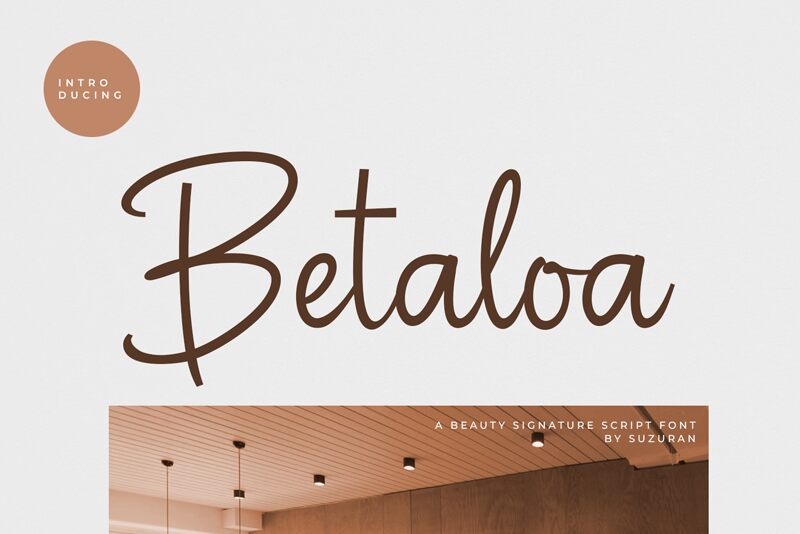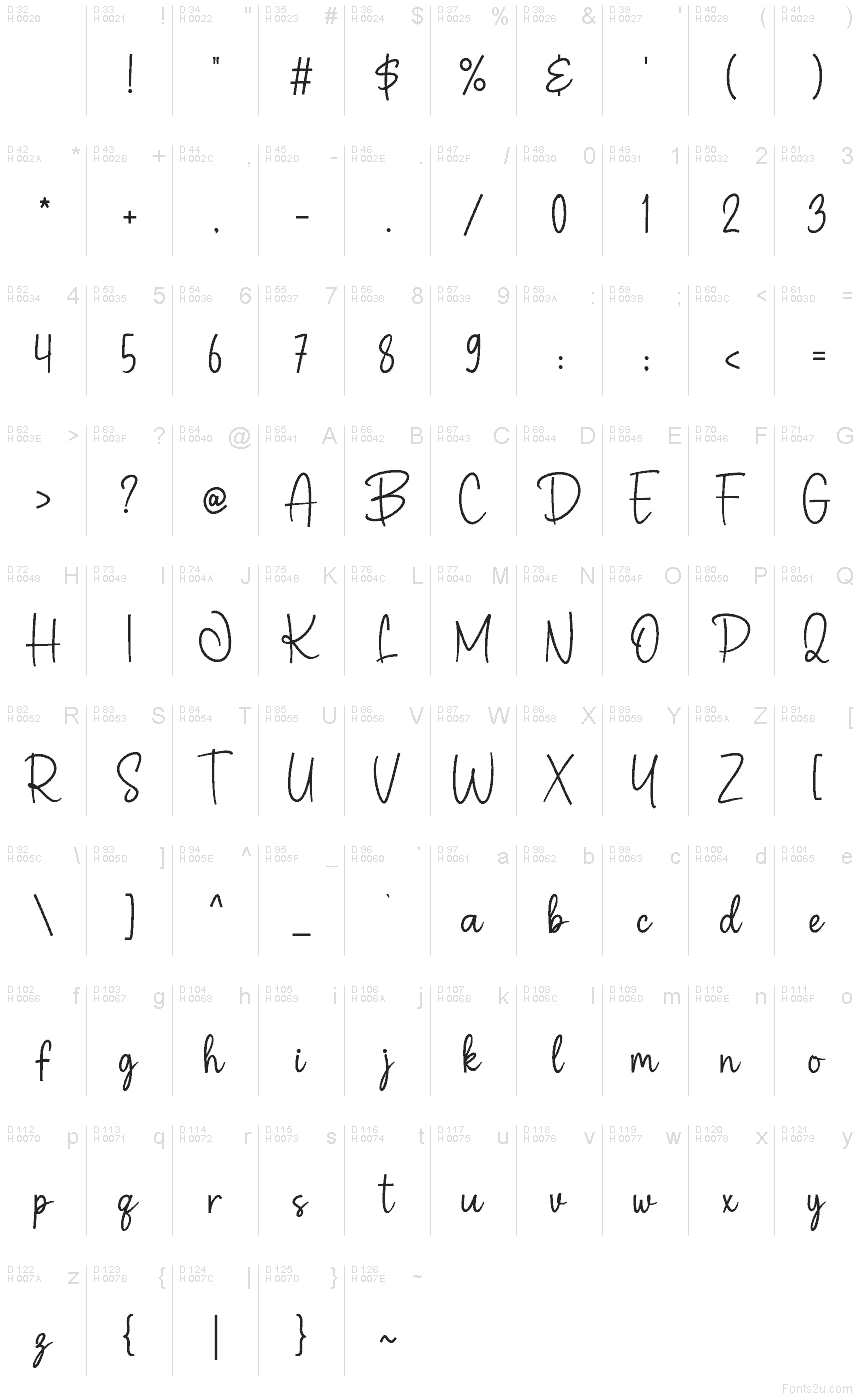
Betaloa
Betaloa font by Khurasan is a free handwritten font that captures the feel of neat, confident pen strokes without sacrificing clarity. Its upright, slightly bouncy letters and consistent line weight give it the warmth of real handwriting, but with the polish of a carefully drawn script. The curves feel smooth and inky, while the spacing stays open enough to read easily at a glance, even in longer words or phrases.
Using Betaloa, you can give logos, product packaging, social media graphics, quote posters, invitations, blog headers, and personal branding a friendly, signature-style touch that still looks professional. This free font shines when used at medium to large sizes where its flowing connections can breathe. Pair it with a clean sans serif for supporting text to keep layouts grounded while Betaloa provides the personable, handwritten voice.